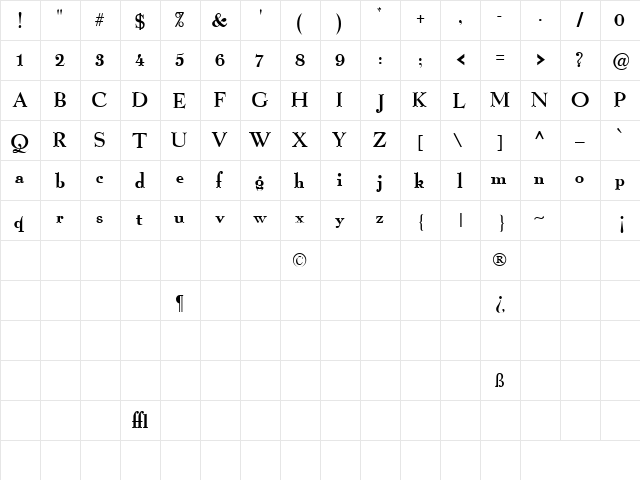
Seasons Of Wither 2 Regular
Design Context for Seasons Of Wither 2 Typeface
Seasons Of Wither 2 is a composed and adaptable typeface that performs quietly and consistently across a wide range of design contexts.